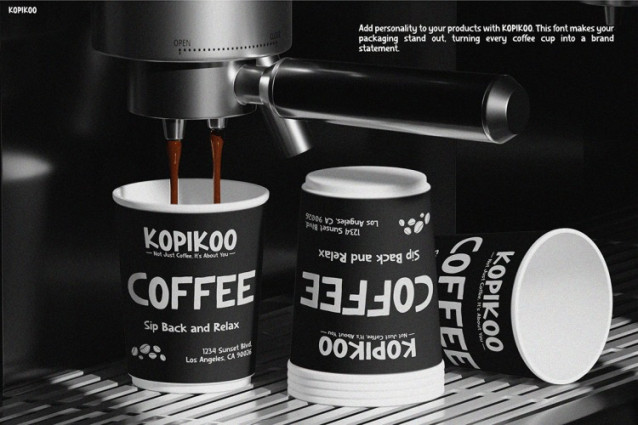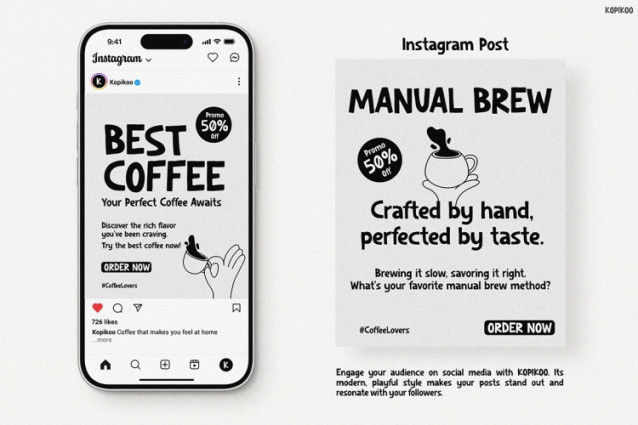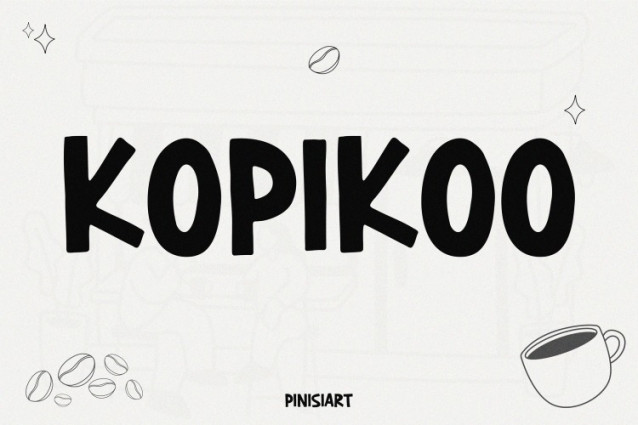
Kopikoo Display Font
Kopikoo Display Font is a playful, bold, and attention-grabbing typeface that brings joy and personality to any design. With its chunky curves and hand-drawn look, KOPIKOO exudes warmth, friendliness, and authenticity. This font is perfect for creating a cozy and fun vibe, whether it’s for coffee cups, storefronts, or product packaging. Its bold and legible letters make it ideal for display purposes, while the quirky letterforms add character to any visual. Not just visually striking, Kids Font KOPIKOO is highly versatile—it seamlessly balances charm and clarity, making it stand out without overwhelming your design.
The charm of KOPIKOO lies in its organic, slightly imperfect strokes that mimic a child’s playful doodle. However, the clever design ensures it maintains readability at all sizes. The letters feel alive, inviting readers to feel more connected to the brand or message. Used on signage, cups, or digital banners, this font turns every surface into a memorable brand statement. Because it fuses aesthetic appeal with practicality, KOPIKOO isn’t just a font—it’s a voice for fun, relaxed, and people-first branding.